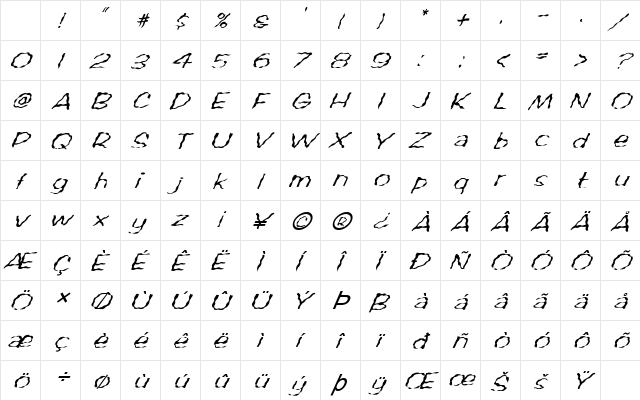
FZ HAND 2 WAVEY ITALIC Normal Free Font
FZ HAND 2 WAVEY ITALIC Normal
FZ HAND 2 WAVEY ITALIC Normal Font Preview
FZ HAND 2 WAVEY ITALIC Normal Uppercase Preview
FZ HAND 2 WAVEY ITALIC Normal Lowercase Preview
FZ HAND 2 WAVEY ITALIC Normal Numeric Preview
FZ HAND 2 WAVEY ITALIC Normal Character Map
Complete FZ HAND 2 WAVEY ITALIC Normal glyph index. Displaying only characters natively supported by FZ HAND 2 WAVEY ITALIC Normal font.
FZ HAND 2 WAVEY ITALIC Normal Character Map
Design Context for FZ HAND 2 WAVEY ITALIC
FZ HAND 2 WAVEY ITALIC flows with the natural rhythm of handwritten lettering, making it ideal for designs that call for warmth and personal expression.
Font Pairing: Combine FZ HAND 2 WAVEY ITALIC with a simple geometric sans for maximum contrast - the tension between flowing curves and clean structure is a classic typographic pairing.
Pro Tip: Use FZ HAND 2 WAVEY ITALIC for short runs of text - names, titles, or taglines. Extended body copy in script faces tires the eye quickly.